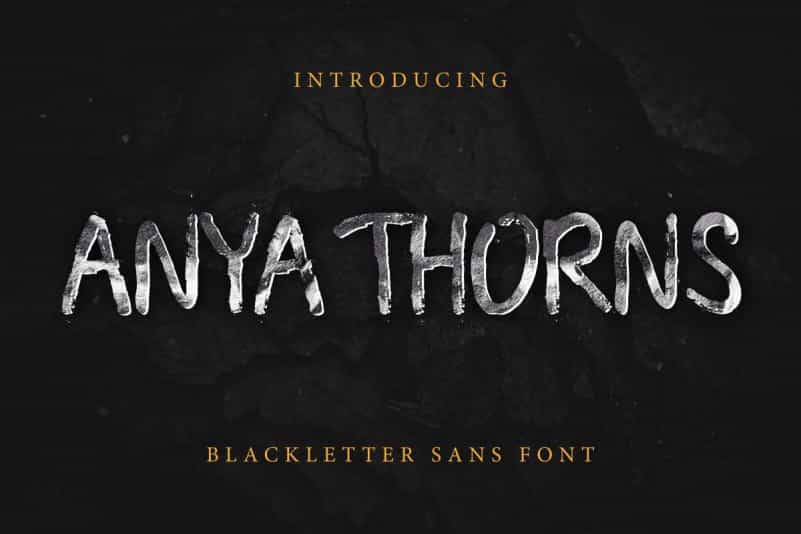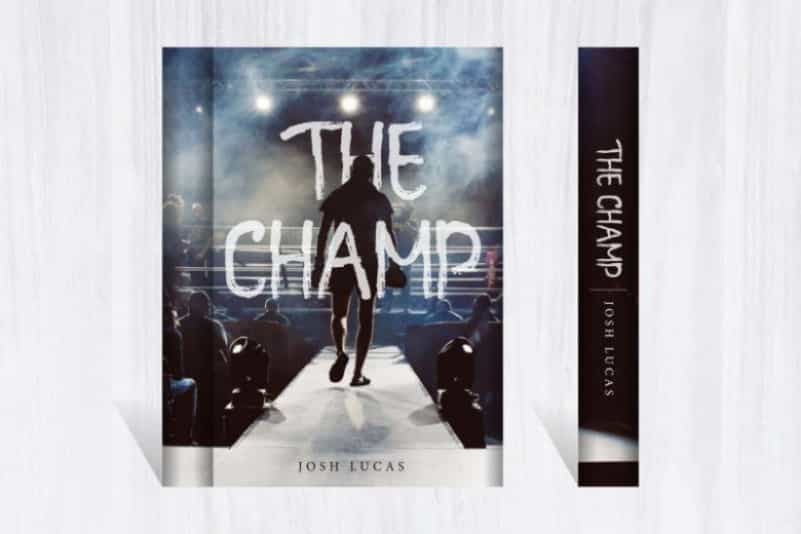
Anya Thorns is a display font with Handwritten Grunge style. This typeface was handcrafted by two typeface artists : Ali and Suci. Anya Thorns Grunge Font is unique, so you can apply it to many projects and expand the exploration.